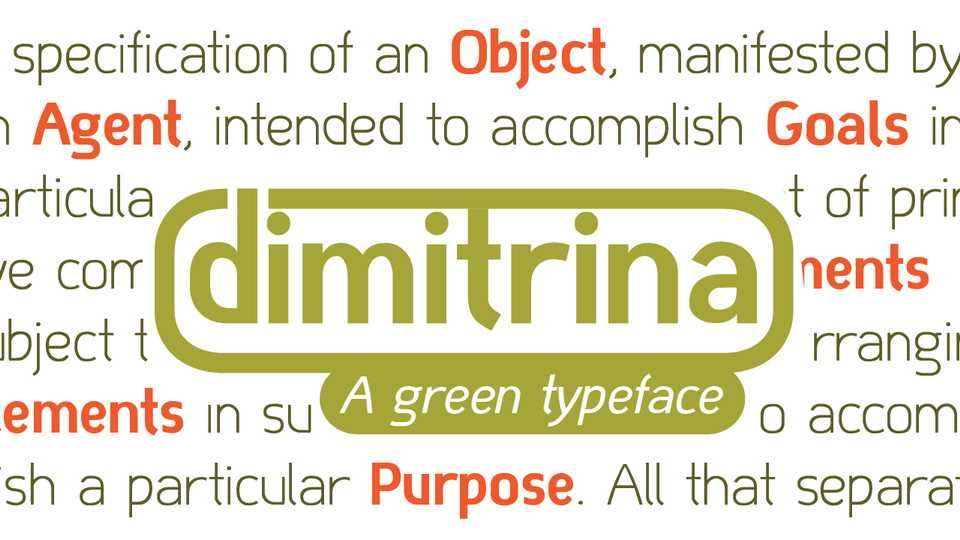
Download Dimitrina typeface, a sans serif font family in six styles that features a minimum of sharp angles. At first the typeface looked more like a script, and some characters still hold traces of a handwritten style which spices the overall taste of Dimitrina.
Designer: Boris Marinov